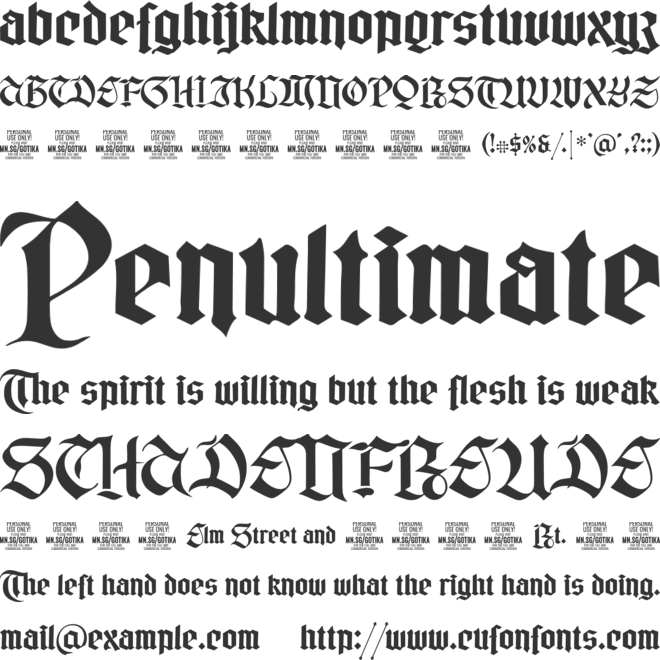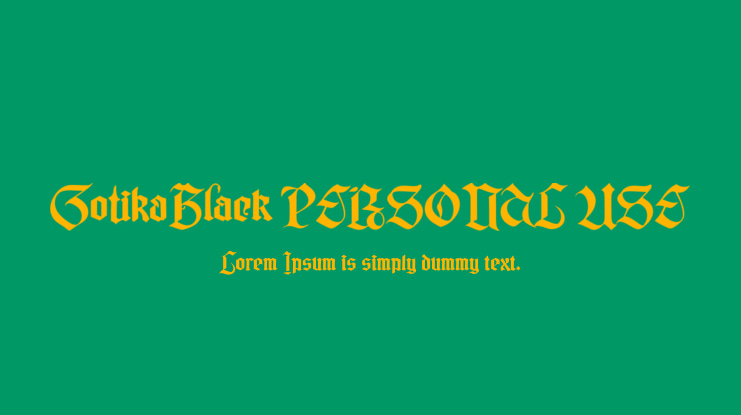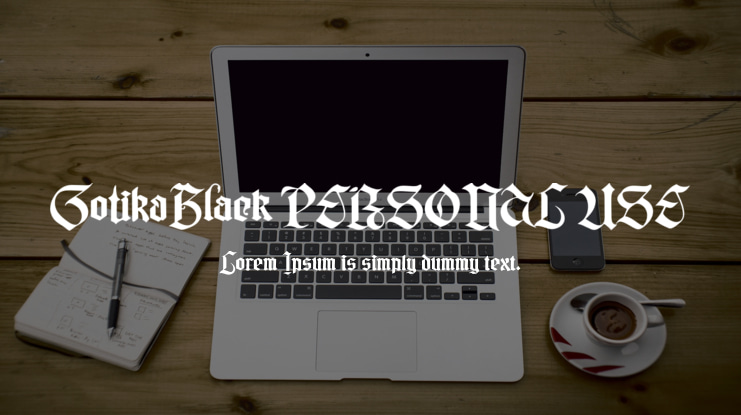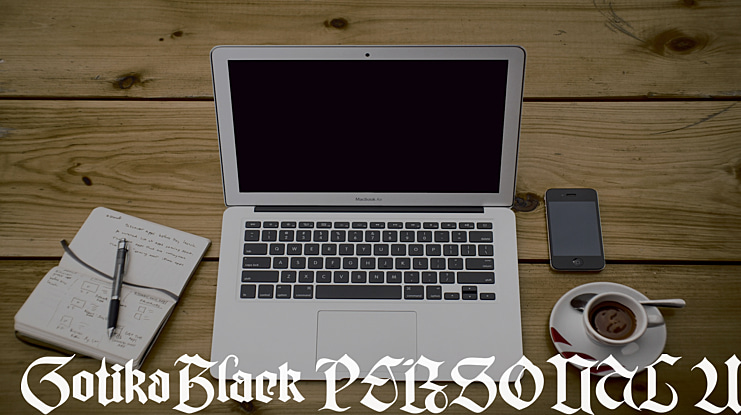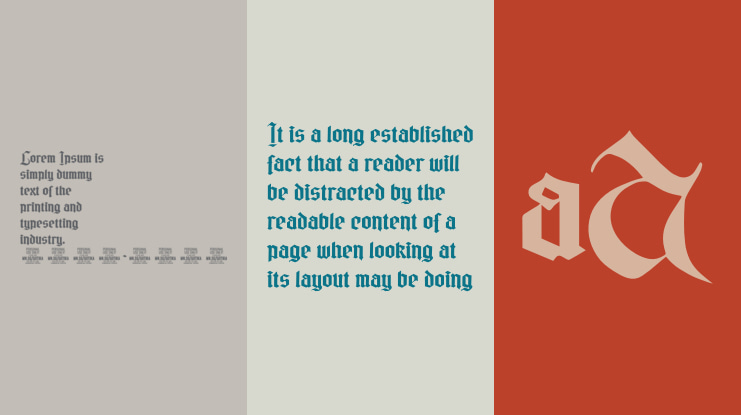
Gotika Black PERSONAL USE Font
Gotika Black is a blackletter font by Mans Greback that masterfully blends Gothic influences with a bold, street-inspired edge. Taking inspiration from medieval documents, Mans hand-drew the letters and then used an AI model to refine and design the complete typeface.